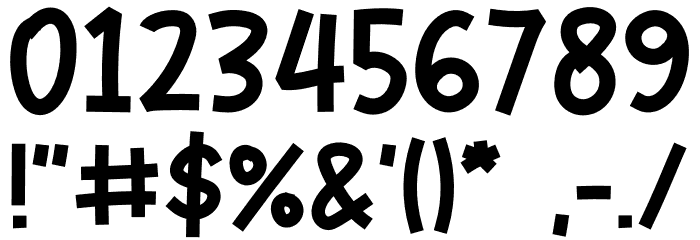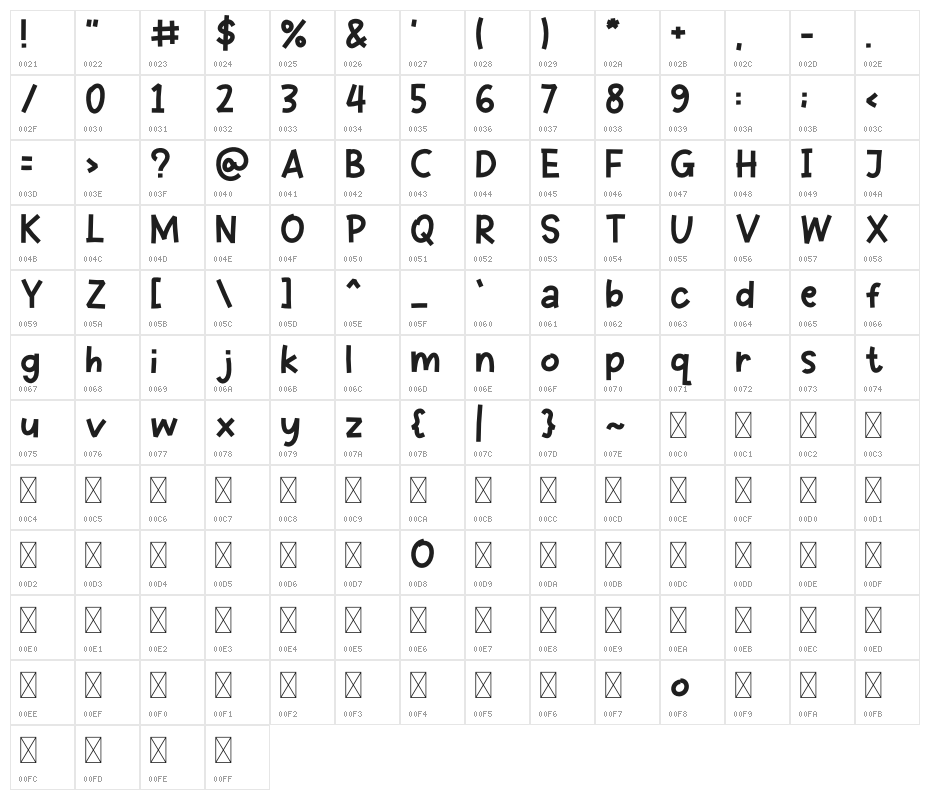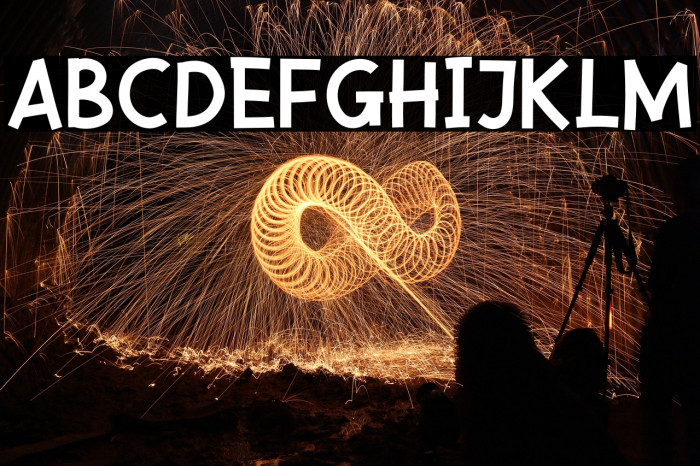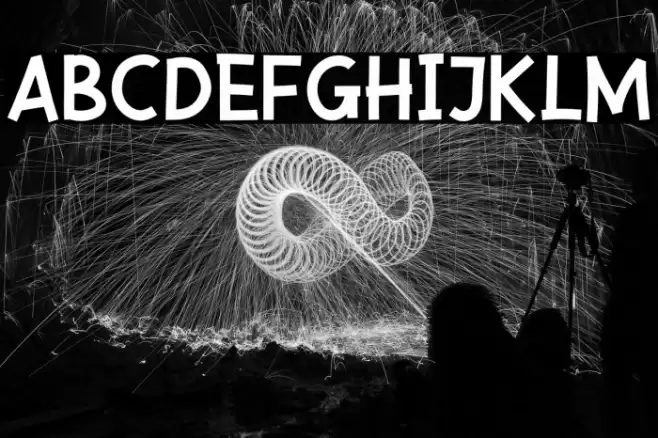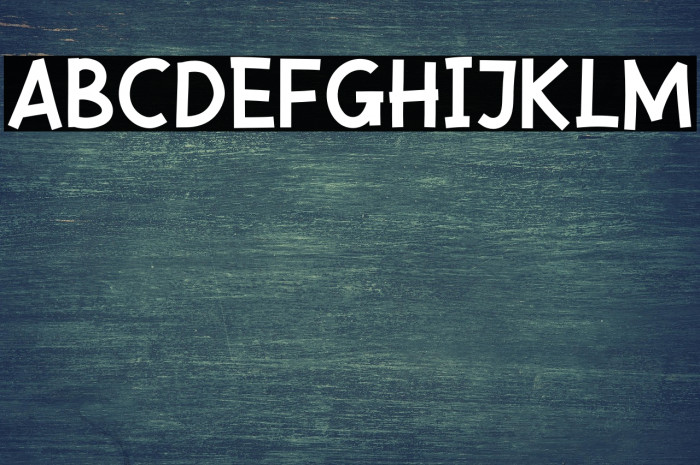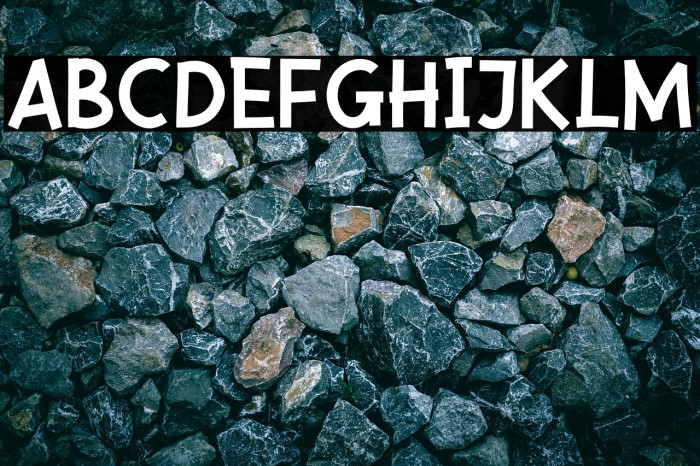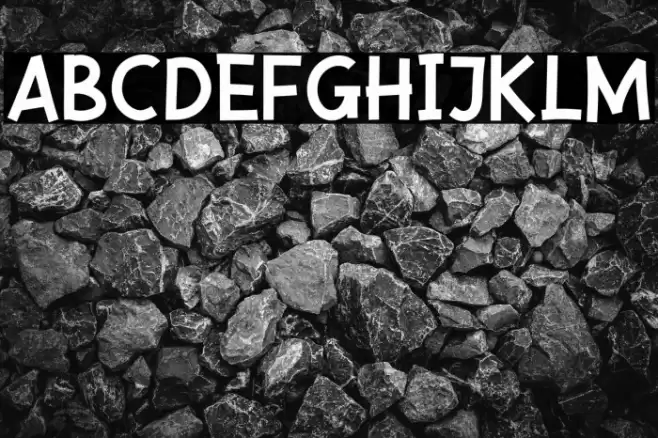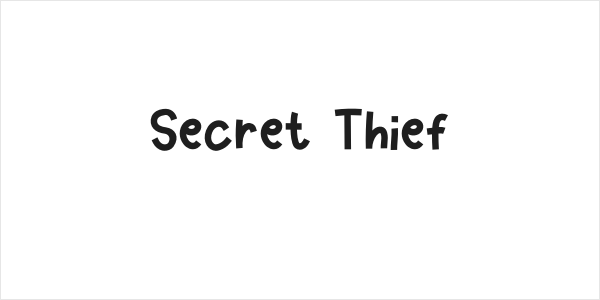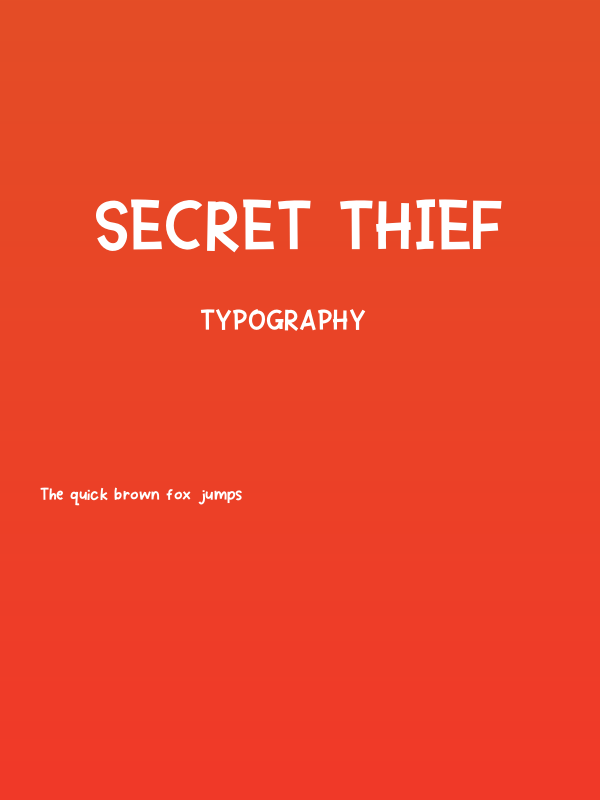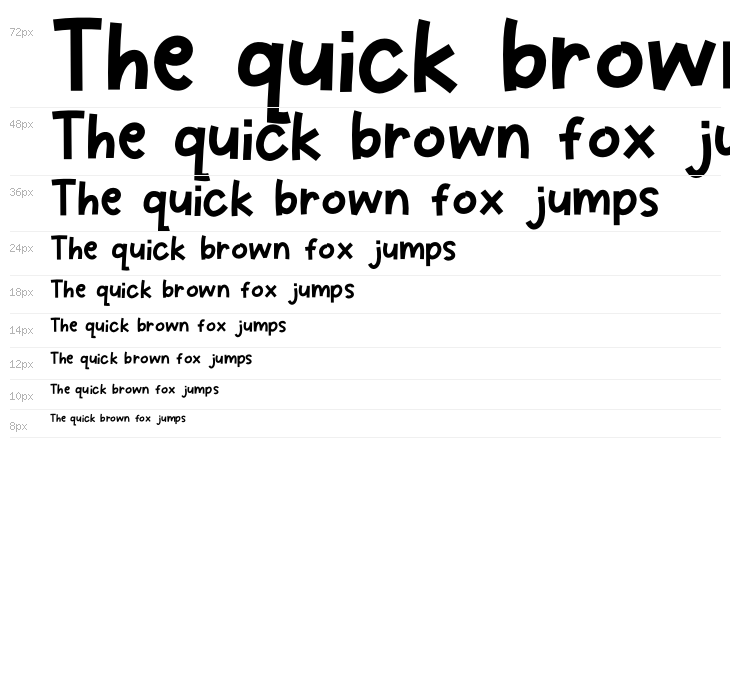
Secret Thief Font
Secret Thief Description
This font features a playful and informal style with a handwritten appearance. The characters are bold and slightly irregular, giving them a whimsical and casual feel. The uppercase and lowercase letters maintain a consistent thickness, while the numbers and special characters complement the overall design. The font's quirky nature makes it suitable for projects that require a fun and approachable look.
Overall StylePlayful
Proposed ProjectsIdeal for children's books, comic strips, casual invitations, and playful branding.